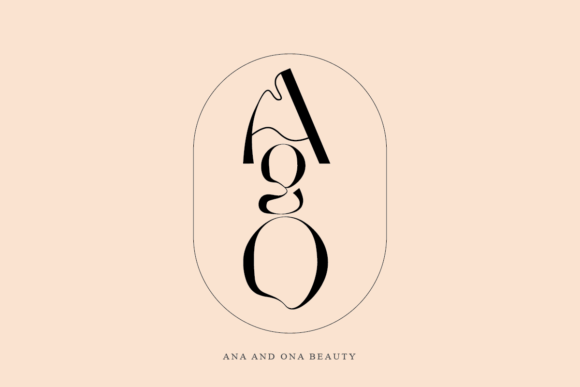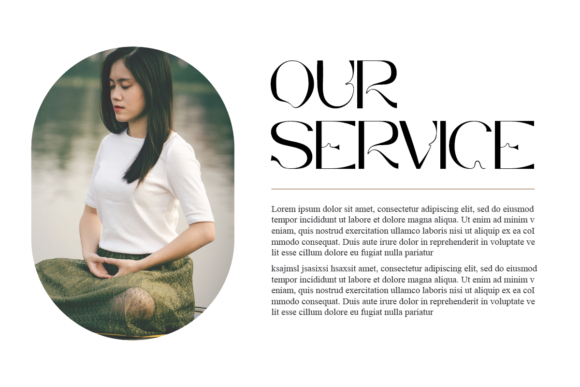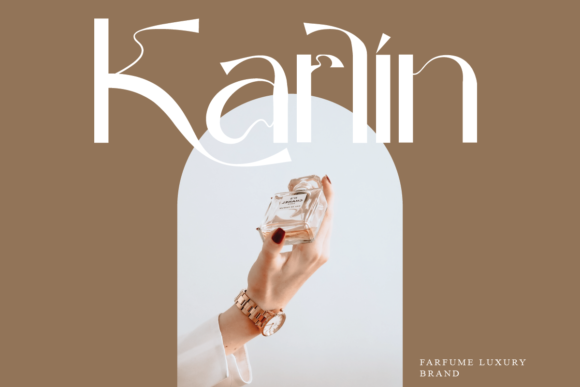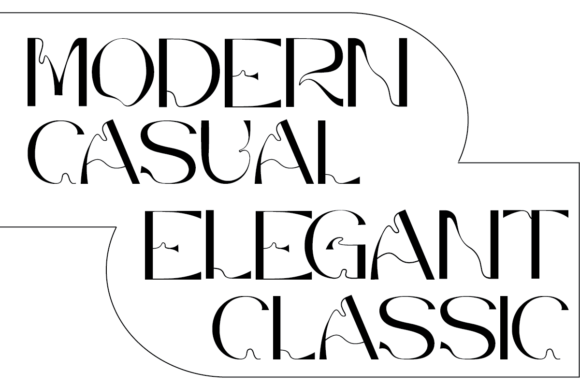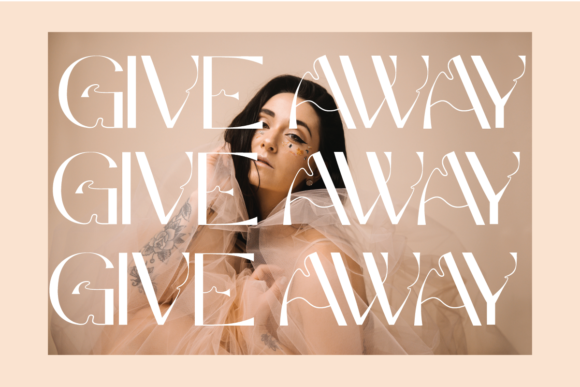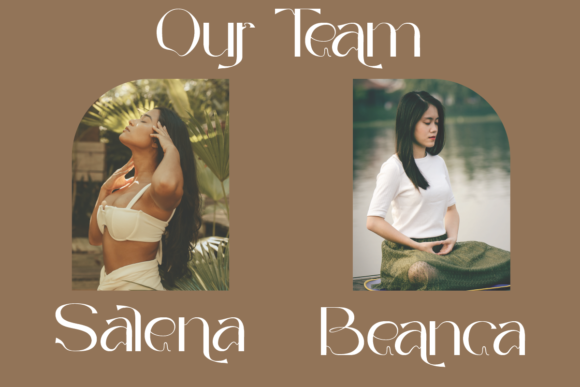
Regan Font – Free Download
Introduction to Regan Font
Regan is a modern sans serif typeface perfect for editorial projects, logo design, clothing branding, product packaging, magazine headers, or simply as a stylish text overlay to any background image.
Add it to any of your designs, and notice how it makes them stand out .
Key Features of Regan Font
Why Choose Regan Font?
Regan Font offers exceptional quality and versatility, making it a valuable addition to your design toolkit. Whether you’re creating for personal projects or commercial use, Regan Font delivers professional results.